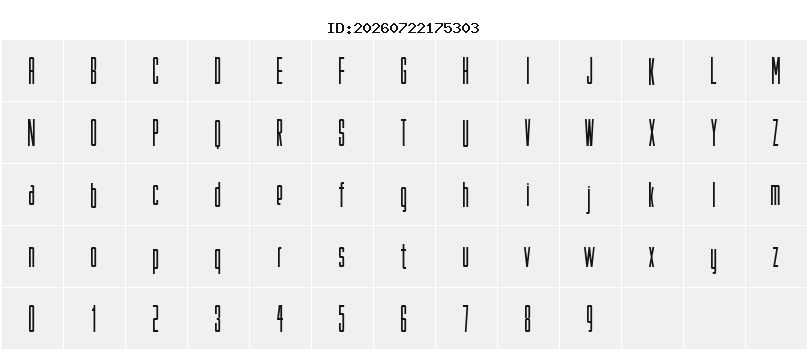
• Font Name: JI-Inspan
• Designer: JupiterImages
JI-Inspan.ttf is a modern, elegant sans-serif font designed for ultimate readability and visual harmony. Perfect for branding, headlines, web design, and print materials.